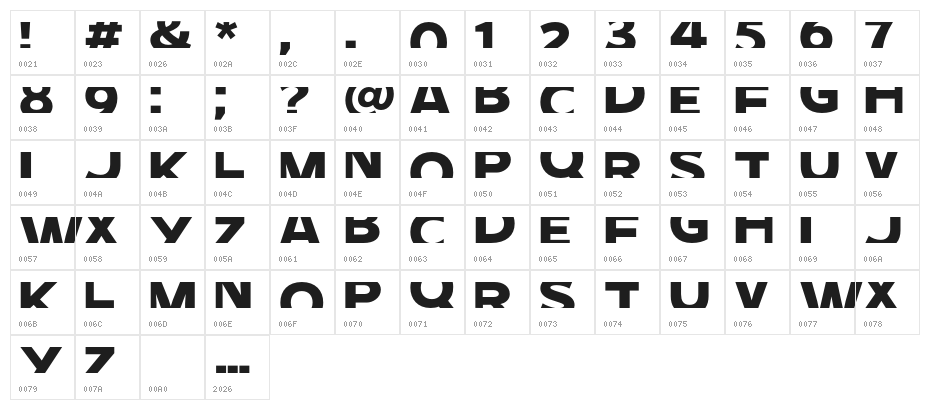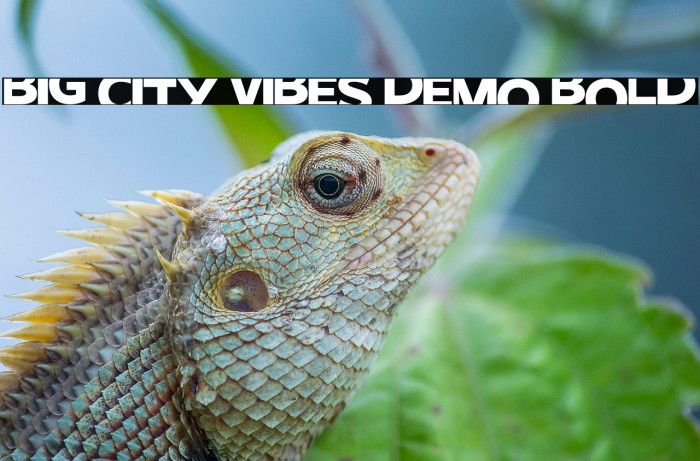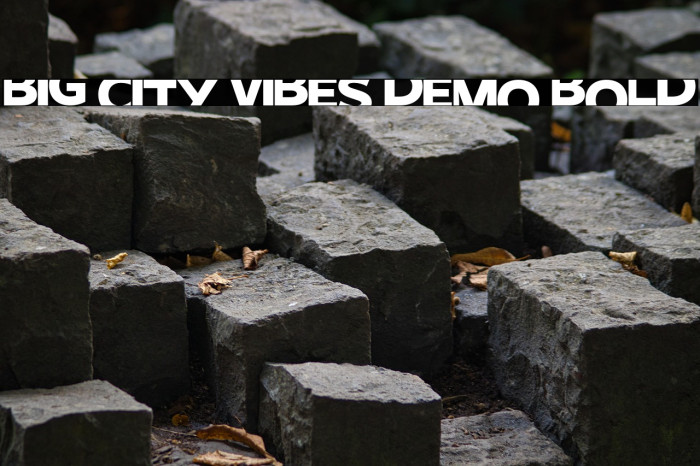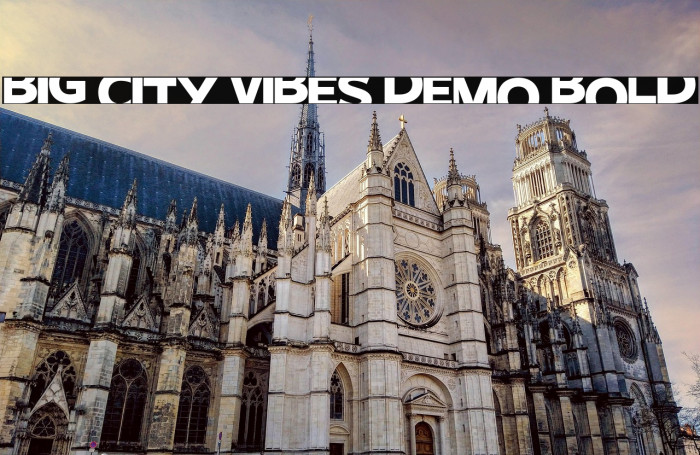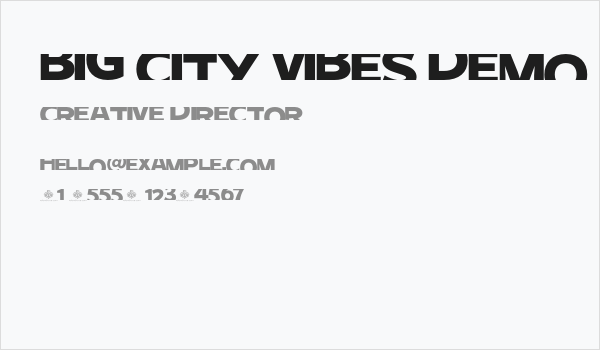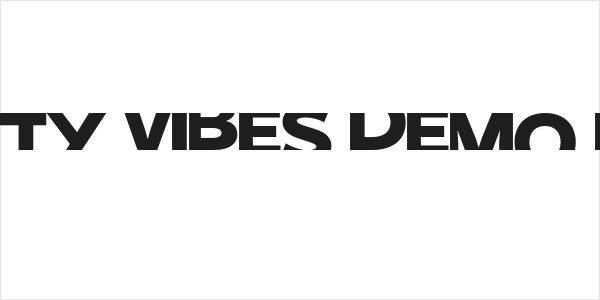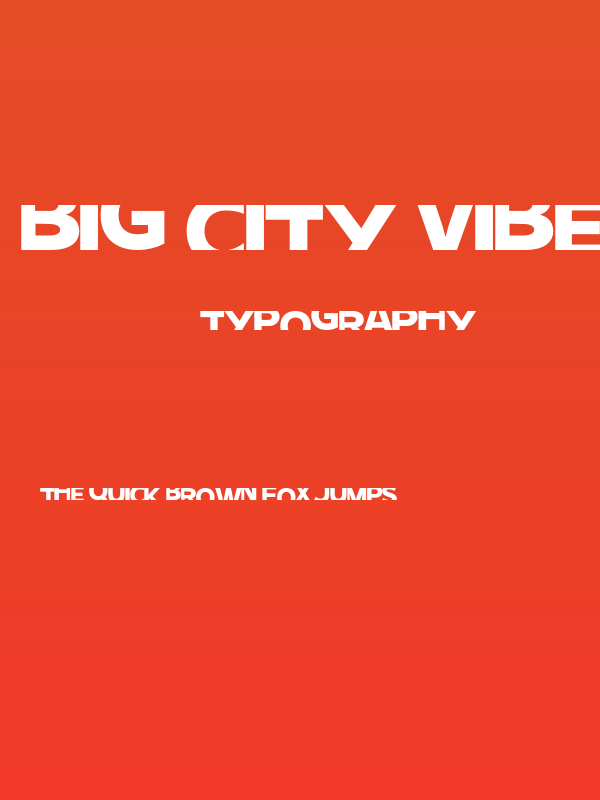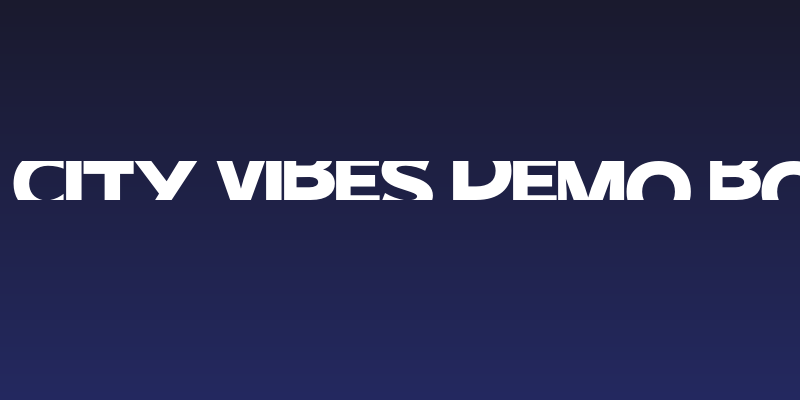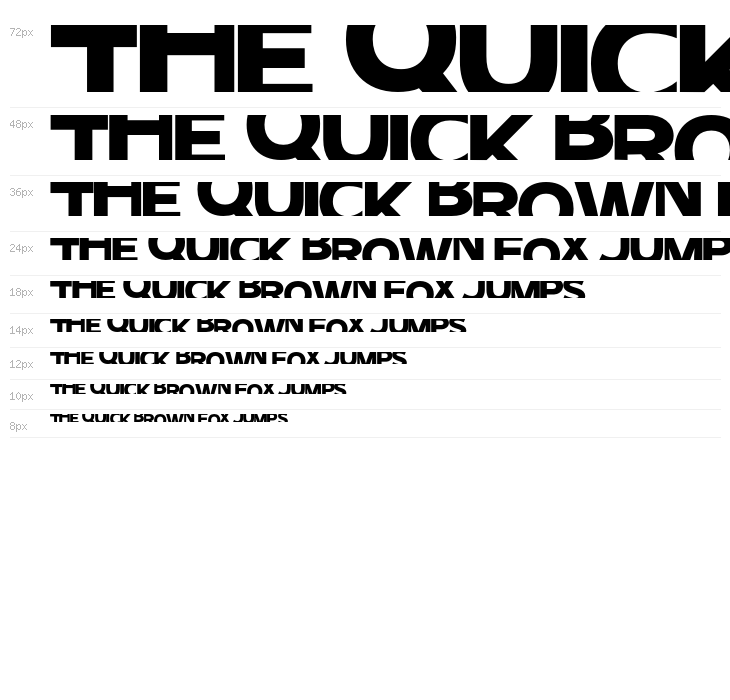
Big City Vibes Demo Bold Font
Big City Vibes Demo Bold Description
This font features a bold and striking design with a modern, urban flair. The characters are crafted with a unique geometric style, incorporating sharp angles and dynamic curves that create a sense of movement and energy. The uppercase letters are particularly distinctive, with some characters featuring cut-out sections that add to the font's edgy and contemporary look. The numbers and special characters maintain this bold aesthetic, ensuring consistency across all elements. This font is perfect for making a statement and capturing attention.
| Proposed Projects | Ideal for branding, posters, headlines, and any project needing a bold, modern touch. |